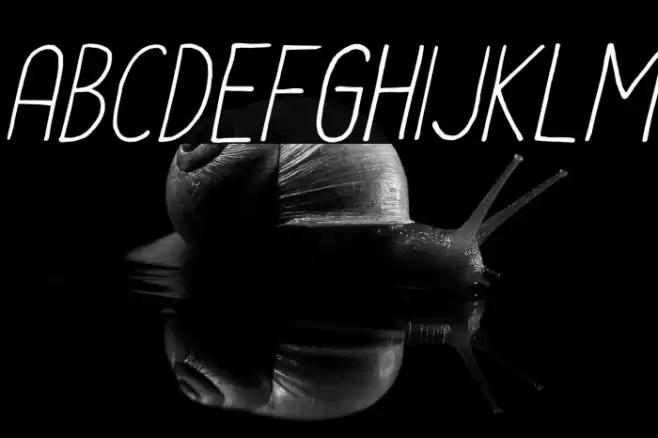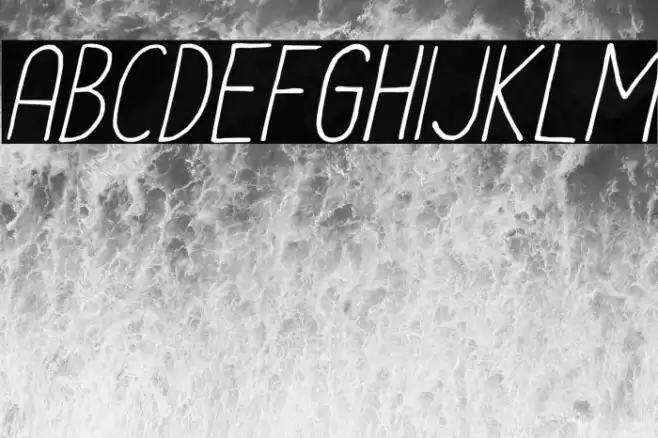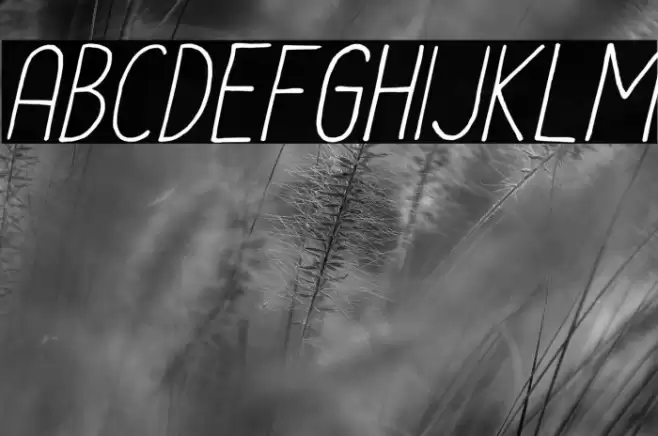
Le-Havre-City-Light-Oblique Font
Le-Havre-City-Light-Oblique Description
This font features a light, oblique style with a modern and elegant touch. The characters are elongated and slightly slanted, giving a sense of motion and fluidity. The strokes are consistent in thickness, contributing to a clean and sophisticated appearance. The uppercase and lowercase letters maintain a harmonious balance, while the numerals and special characters are designed to complement the overall aesthetic. The font's design is both versatile and stylish, making it suitable for various creative applications.
A light, oblique font with a modern and elegant style from Uncategorized fonts.
- Font: Le-Havre-City-Light-Oblique
- Proposed Projects: Ideal for fashion magazines, modern branding, elegant invitations, and stylish website headers.
- Weight: Light
- Use Case: Headlines, Logos, Invitations